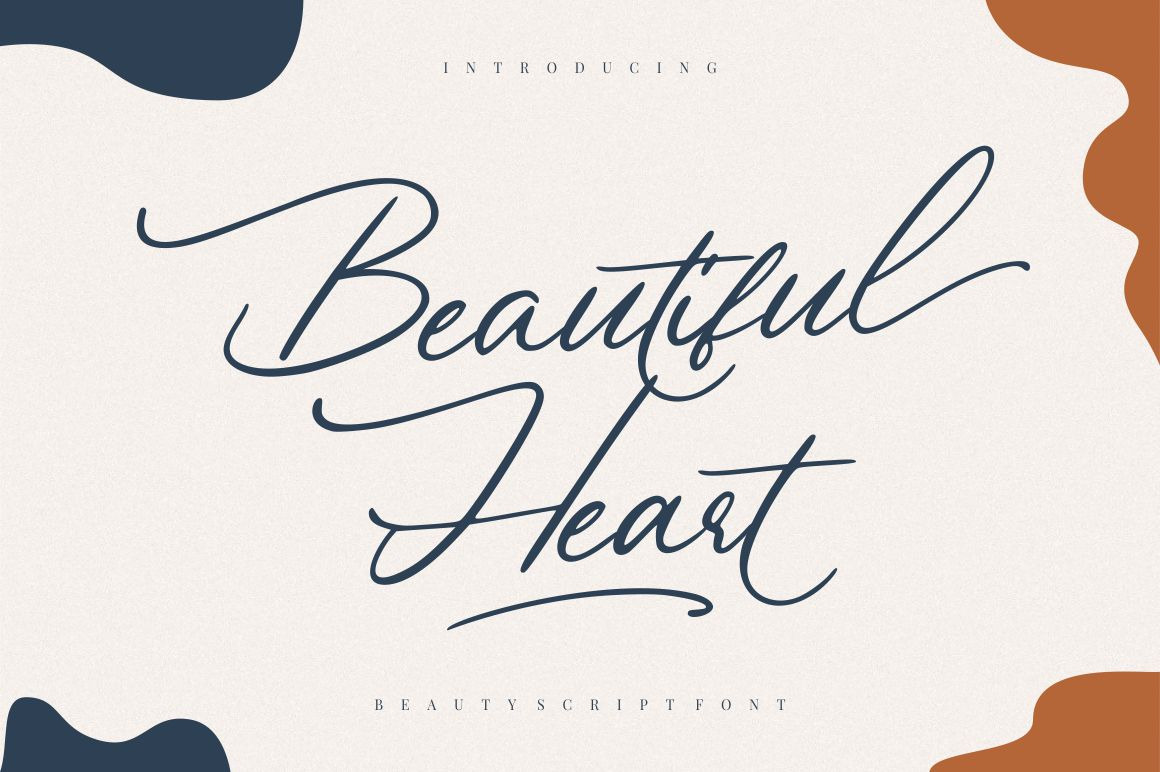
Beautiful Heart Font
Beautiful Heart Font is perfect for wedding invitations, romantic greeting cards, love-themed branding, beauty and wellness logos, valentine's day campaigns, jewelry packaging, spa and massage therapy materials, romantic restaurant menus, bridal boutique signage, and heartfelt personal stationery.
What makes Beautiful Heart Font exciting is its deeply emotional character that instantly conveys love, warmth, and genuine affection through its tender and graceful letterforms. The font features flowing curves and romantic details that create an atmosphere of intimacy and heartfelt connection, making every message feel personal and meaningful. Its carefully crafted design captures the essence of romantic expression while maintaining excellent readability, making it perfect for brands that want to communicate love, care, and emotional authenticity while creating memorable experiences that touch the heart.
Beautiful Heart Font family includes various romantic styles such as Regular, Light, and Bold variations, often featuring decorative flourishes and heart-inspired ornamental elements. The family may include special romantic ligatures, love-themed symbols, and elegant swashes that enhance the font's tender aesthetic, providing designers with comprehensive options for creating emotionally resonant typographic compositions and heartfelt brand experiences.
This enchanting typeface has become increasingly popular among wedding professionals and romance-focused businesses seeking emotionally engaging typography. Beautiful Heart Font Free Download provides a wonderful opportunity to experience this romantic font before purchase. The font's character set includes love-inspired symbols and romantic glyphs that work perfectly for relationship and celebration industry applications. Whether you're designing for wedding planners, romantic getaway destinations, or heartfelt gift companies, Beautiful Heart Font delivers the emotional connection your project needs. Its versatile nature makes it suitable for various love-centered applications including anniversary celebrations, romantic poetry books, couples' counseling materials, and affectionate lifestyle brands, ensuring your typography choices create genuine emotional bonds and lasting memories while communicating the universal language of love through its beautifully expressive and deeply touching visual personality that celebrates human connection.